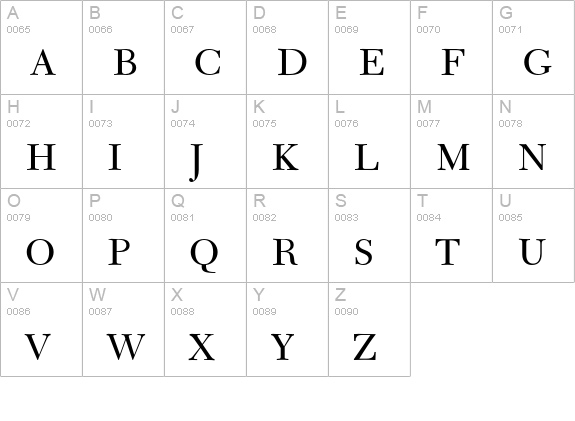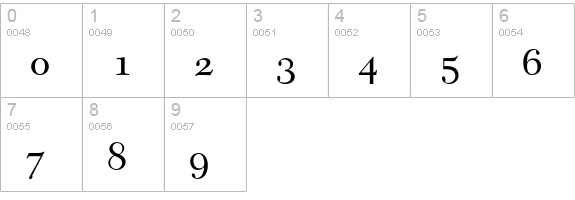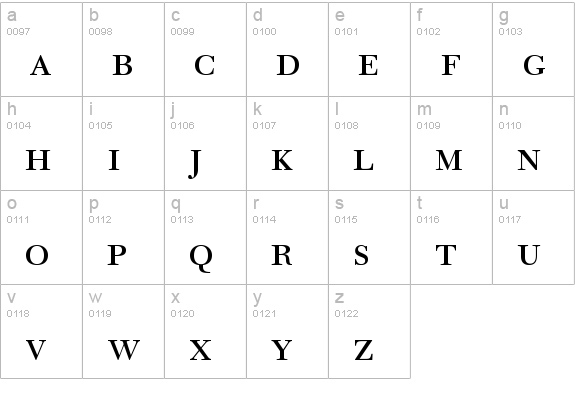
New Caledonia Small Caps & Old Style Figures Font Details
New Caledonia Small Caps & Old Style Figures font is a sophisticated and elegant typeface that exudes a sense of timeless charm. The combination of small caps and old style figures creates a unique and classic look that is perfect for a variety of design projects. The graceful curves and intricate details of this font make it ideal for adding a touch of sophistication to any text. What sets New Caledonia Small Caps & Old Style Figures font apart is its versatility and ability to complement both modern and traditional designs. Whether used for invitations, signage, branding, or editorial design, this font is sure to make a lasting impression. The best part is that New Caledonia Small Caps & Old Style Figures font is available for free download at FontsMarket.com. This means you can easily access and use this beautiful typeface in your projects without any cost. Don't miss out on the opportunity to enhance your designs with the elegance and charm of New Caledonia Small Caps & Old Style Figures font.